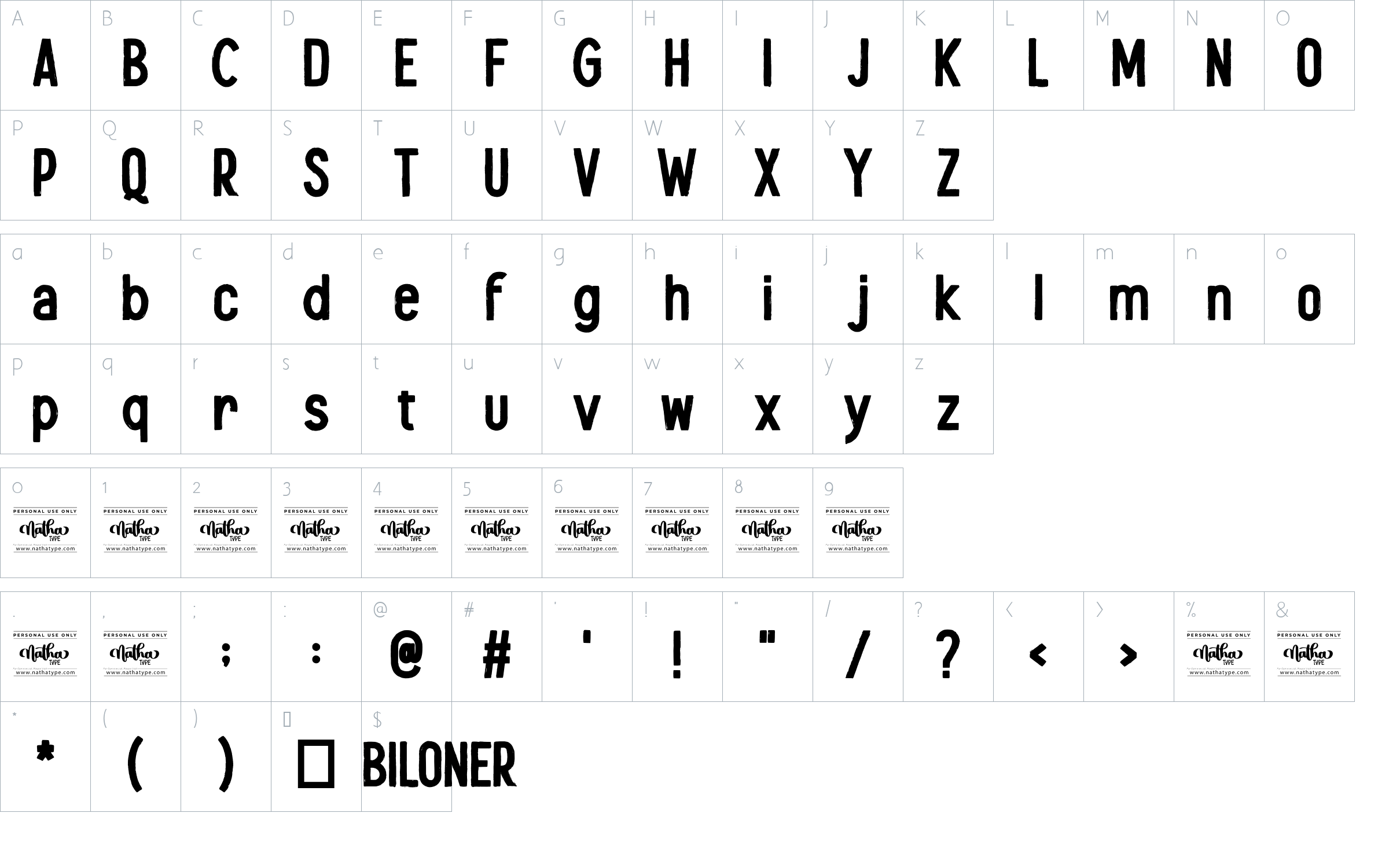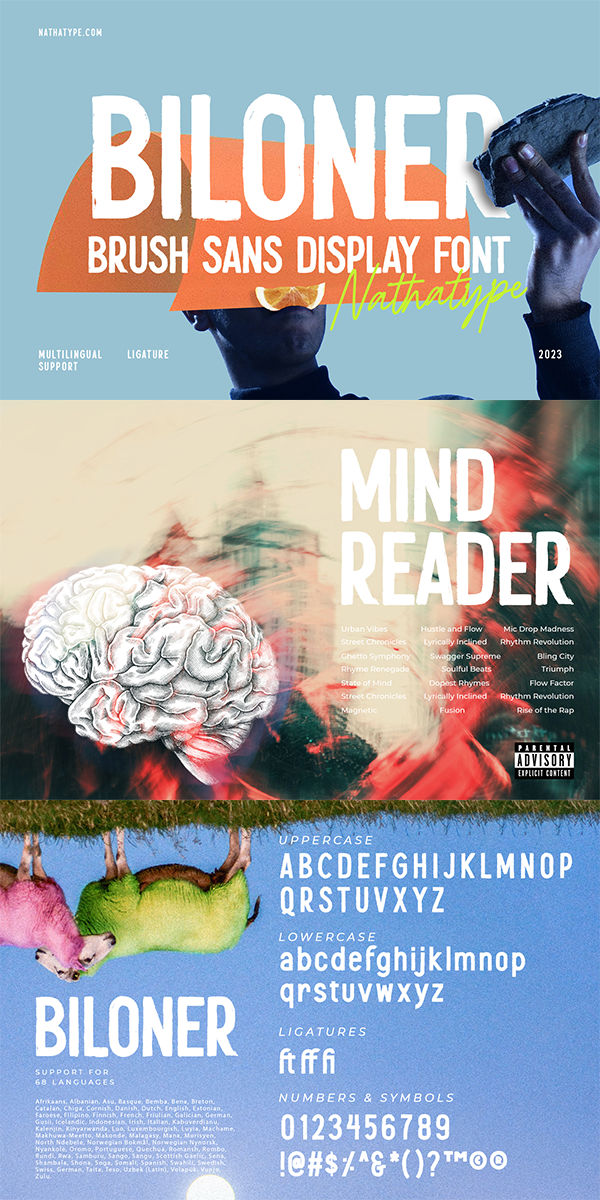
Biloner Font
About Biloner
Biloner is a font in simple, clean sans serif base forms. Its letters have no ornaments and serifs making them look modern and simple. The firm, straight letter shapes look strong and evident. This font shows enlarged capital letters to create a brave, prominent look enabling it to be the center design and to make an explicit message.
Despite its original sans serif font base form, Biloner adds detailed brush touches to the letters to give extra rough textures on the letter lines. The brush scratches are on the edge or certain parts of the letters adding dimensions and attractive visuals. Fortunately, this font is applicable for any text sizes thanks to its great legibility, and you may also enjoy the available features here.)
Biloner’s flexibility enables it to adapt to any design styles, either the modern and contemporary, or brave and creative ones. It surely fits for any design contexts such as titles, posters, book covers, and brandings. Find out more ways to use this font by taking a look at the font preview.